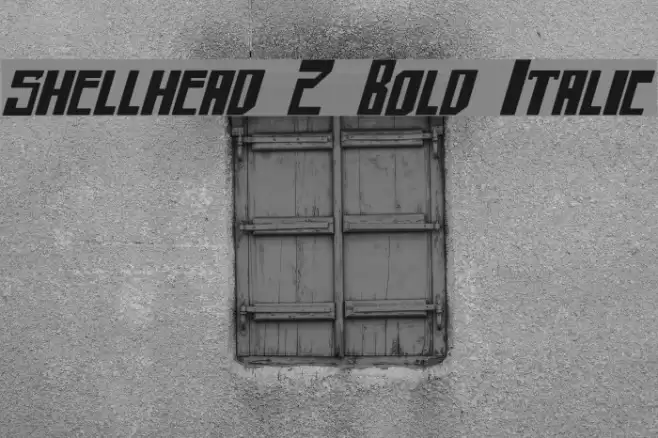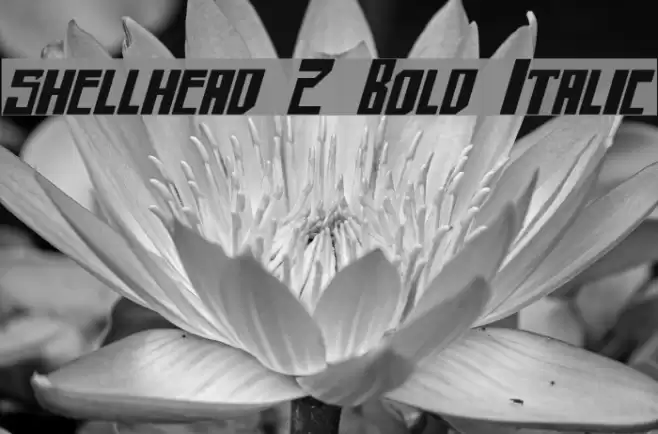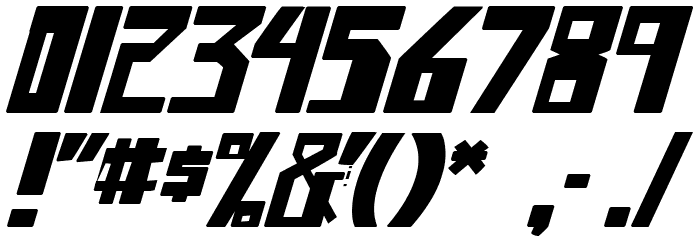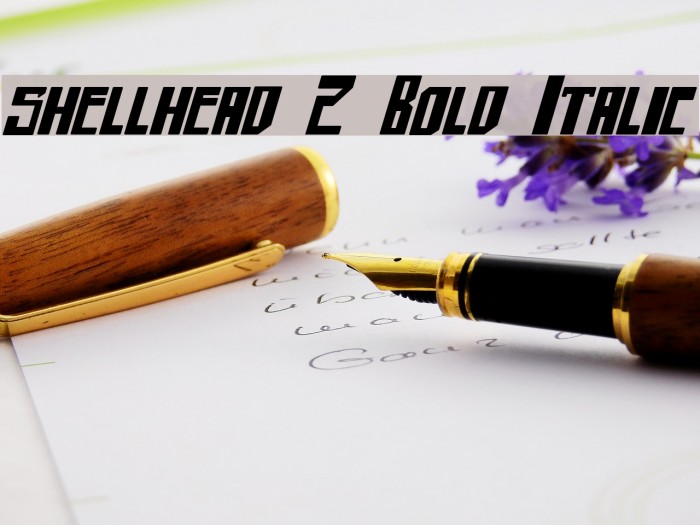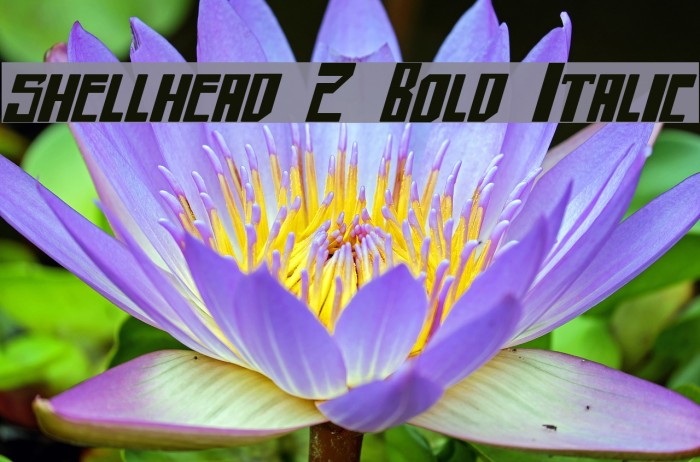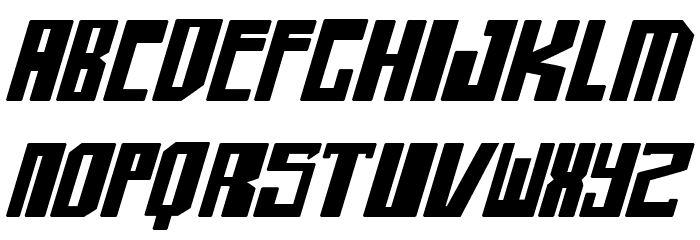
shellhead 2 Bold Italic Font
shellhead 2 Bold Italic Description
This font features a bold and italicized style, characterized by its sharp, angular lines and dynamic slant. The uppercase and lowercase letters maintain a consistent geometric form, giving the typeface a futuristic and aggressive appearance. The numbers and special characters follow the same design principles, ensuring uniformity across all glyphs. The font's bold weight and italic slant make it stand out, ideal for attention-grabbing headlines or titles. Its unique style is both modern and edgy, suitable for projects that require a strong visual impact.
A bold, italicized font with sharp, angular lines and a futuristic style from Futuristic fonts.
- Proposed Projects: Ideal for sci-fi themed posters, video game titles, sports branding, and dynamic advertisements.